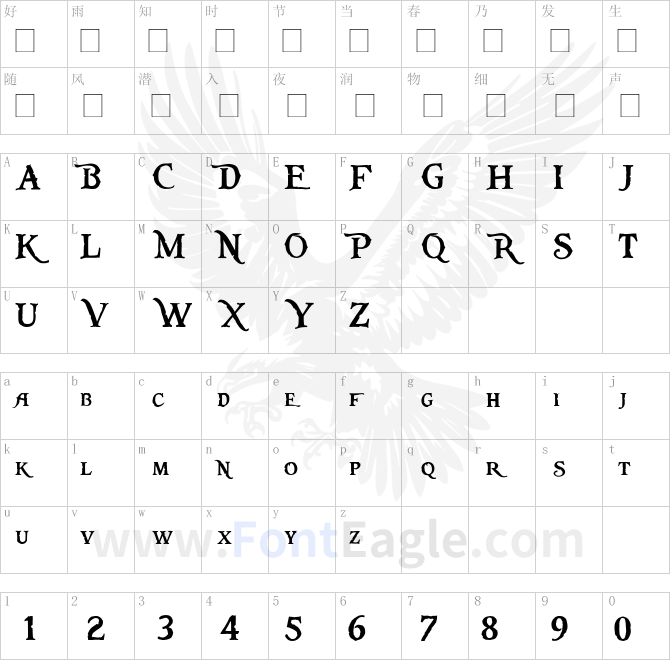
- Font name:Pieces of Eight
- Font Subfamily ID:Pieces of Eight:Version 1.01
- Font Full Name:Pieces of Eight
- Font Version:1.2 September 28, 2006
- Postscript:PiecesofEight
- Font Copyright:© 2006, 2010 Steve Fererra All Rights Reserved. Peices of Eight is inspired by the characters on the coming attraction poster “Pirates of the Caribbean”. All official material on Pirates of the Caribbean is a copyright of the Walt Disney Company. The font is provided as FREEWARE for your enjoyment, and is not be used for any commercial or publication purpose. Any trademarks, logos and graphic elements contained within this font are the property of their respective owners.